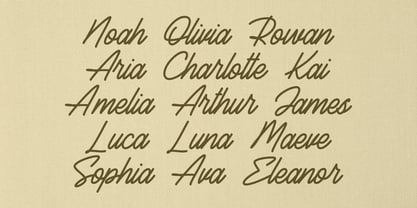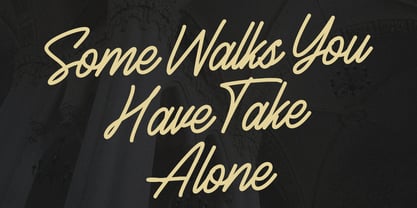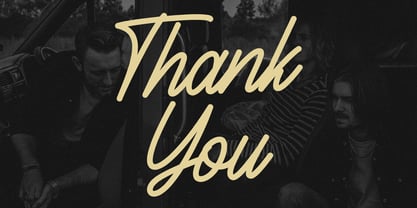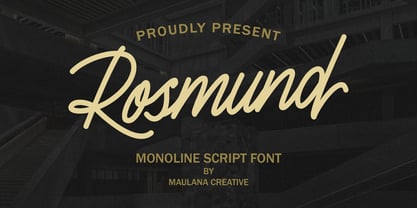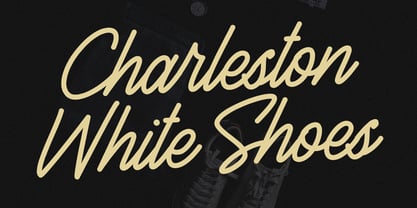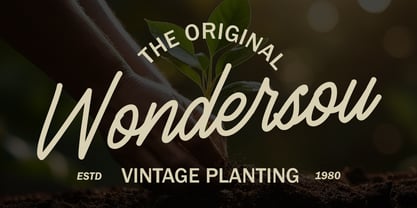
MC Rosmund
by Maulana Creative
The MC Rosmund Font Family was designed by Gilang Maulana and published by Maulana Creative. MC Rosmund contains 1 styles.
Rosmund Monoline Script Font
Rosmund casual signature script monoline font. Fun character with a bit of ligatures and alternate. To give you an extra creative work. Rosmund font is good for logo design, Social media, Movie Titles, Books Titles, a short text even a long text letter and good for your secondary text font with script or serif. Make a stunning work with Rosmund font.
Designers: Gilang Maulana
Publisher: Maulana Creative
Foundry: Maulana Creative